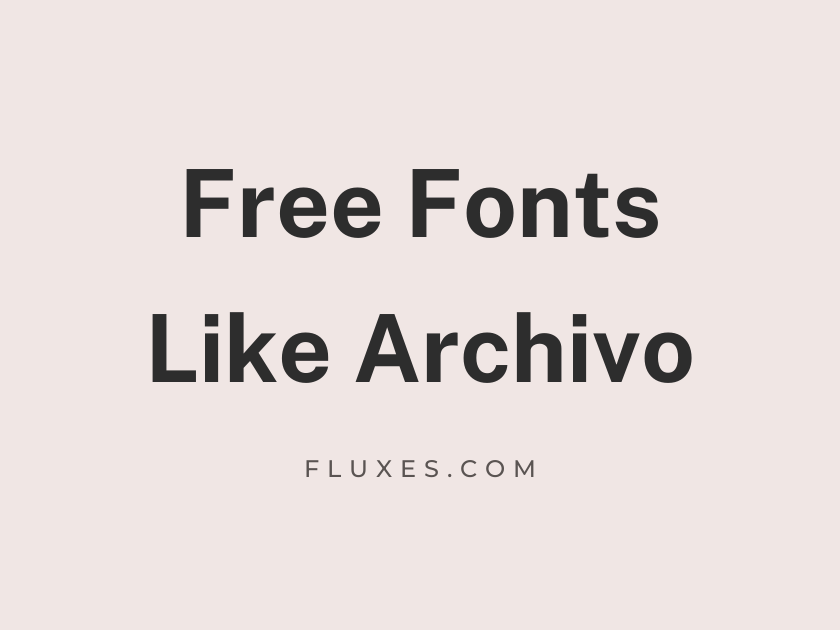
14 Best Free Fonts Similar to Archivo
Archivo has become a go-to grotesque for designers who want something sturdier and more editorial than the usual system sans. Originally drawn for newspaper headlines and later expanded into a huge family of widths and weights, it reads as neutral but never bland, with slightly squared curves and confident proportions that hold up in both a hero headline and a dense data table. If you are hunting for free alternatives to Archivo on Google Fonts, the field of genuine neo-grotesque and grotesque-adjacent sans fonts is smaller than it looks, since a lot of “similar” options lean either too geometric or too soft. The fonts here share Archivo’s backbone: workhorse letterforms, broad weight ranges, and enough personality to anchor a brand without shouting.
Clear, functional type built for public information
Public Sans was commissioned by the U.S. government’s design system, so its whole reason for existing is legibility at scale across forms, dashboards, and dense interfaces, much like Archivo’s own utilitarian streak. The letterforms are plain in the best sense, with even spacing and sturdy strokes that never call attention to themselves. It is an easy pick for civic, product, or documentation sites that need a trustworthy, unfussy voice.
Optimized for screens, comfortable at every size
Work Sans was drawn with mid-sized text on screens in mind, and it shows in the generous x-height and open counters that keep paragraphs breathing. It shares Archivo’s grotesque bones but feels a touch friendlier and rounder at the joints. Pair it with a heavier Archivo-style display face for headlines and let Work Sans carry the body copy.
Corporate confidence with a hint of character
Designed in-house at IBM, Plex Sans carries a distinct engineering pedigree: slightly humanist details, a subtle warmth in the curves, and a full complement of weights and widths that rivals Archivo’s own range. It works equally well in a product interface or a printed annual report. Where it diverges from Archivo is in a few quirky letter shapes, like the two-story “a” and the angled terminals, which give it more personality in headlines than in long-form text.
Built for interfaces, tuned for the screen
Inter is practically the default grotesque for modern web apps, and for good reason: it was engineered specifically for UI legibility, with tall x-heights and careful hinting at small sizes. It is more clinical than Archivo, with less visual flavor in its curves, which makes it a safe workhorse rather than a personality font. Reach for Inter when the priority is dashboards, forms, and dense screens rather than editorial storytelling.
Rounded corners, engineered proportions
Barlow takes its cues from the low-crowned lettering used on California license plates and highway signage, giving it a faintly technical, engineered feel. Slightly rounded terminals soften what would otherwise be a very rigid grotesque skeleton. It has a wide family of widths and weights, so it can match Archivo’s flexibility in a branding system that needs both compressed and standard cuts.
Modern grotesque with sharp, tidy details
Hanken Grotesk feels like a close cousin to Archivo in spirit: crisp, businesslike, and comfortable at both display and text sizes. The letterforms are tight and efficient, with square dots and clean terminals that give headlines a modern, slightly cool edge. It suits fintech, SaaS, and editorial sites that want something sharper than Helvetica-style default sans fonts.
Red Hat Display
Bold headlines for tech-forward brands
Red Hat Display
Red Hat Display was built as the headline partner to a text face, so it leans slightly condensed and confident, ready to fill a hero banner without feeling stretched thin. Its personality comes through most in bolder weights, where the strokes thicken unevenly in a way that adds character. Use it for display type and hand text-heavy sections to something calmer.
Instrument Sans
Contemporary grotesque, quietly expressive
Instrument Sans
A newer arrival to Google Fonts, Instrument Sans has quickly found favor with designers who want a grotesque that feels current without chasing trends. Its curves are slightly more relaxed than Archivo’s, with understated ink traps and a few distinctive letter shapes that stand out in larger sizes. It pairs nicely with Archivo itself in a system that separates display and body roles.
Friendly grotesque for products and portfolios
Figtree softens the grotesque formula with rounder bowls and a slightly playful rhythm, making it a good fit for portfolio sites, startup landing pages, or anywhere a brand wants approachability over authority. It shares Archivo’s practical weight range but trades some of that font’s severity for warmth. At small sizes it stays legible, though it loses a bit of its charm compared to display use.
Low-contrast grotesque built for the web
DM Sans was designed specifically for screen use, with low contrast strokes and a tight, geometric rhythm that keeps text blocks looking even and calm. It reads as more geometric than Archivo, with rounder o’s and a slightly narrower stance, but the two share enough family resemblance to swap in as a lighter-feeling alternative. It is especially good in UI labels, buttons, and short bursts of text.
Archivo earned its popularity by being useful first and stylish second, and every font in this list follows that same principle. Whichever one you choose, you are getting a grotesque built for real editorial and product work, not just a pretty specimen.